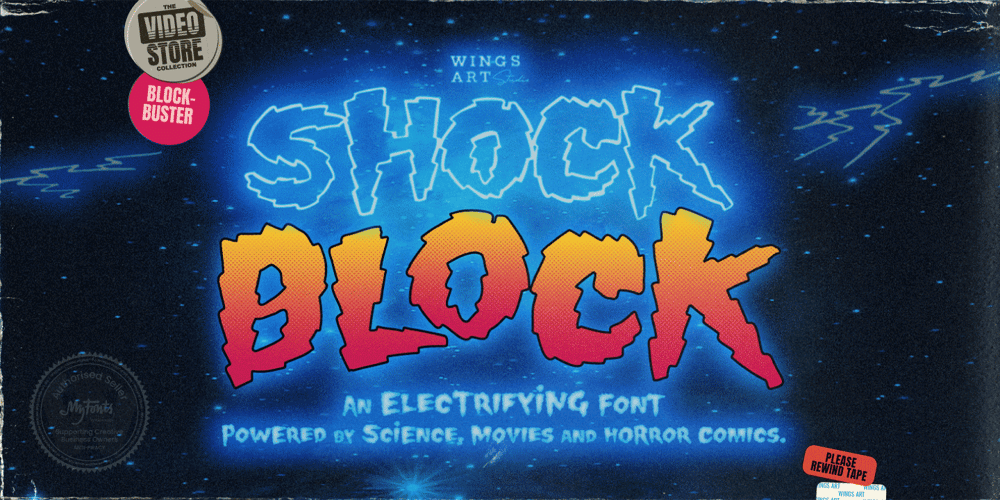
Shock Block Font Family was designed by Christopher King and published by Wing’s Art Studio. Shock Block contains 3 styles and family package options. Shock Block: An electrifying font powered by science, 80s movies and horror comics.Boasting an eye-catching design that’s hand-drawn in pen and ink to replicate the look of classic horror comics, 80s movies and Saturday morning cartoons, Shock Block is a highly volatile font powered by experimental science and 1.21 gigawatts of electricity! User be warned, safety goggles are required!Shock Block is an all-caps design with unique upper and lowercase characters along with numerals, punctuation and language support. It also includes a contrasting ‘Block’ style and a selection of lighting blot symbols and underlines.It’s a unique typeface that’s perfect for movie titles, school projects, presentations, comic books, or anything that could do with extra spark.Add a simple electric glow effect using these free presets for Adobe Illustrator, Photoshop and After Effects.